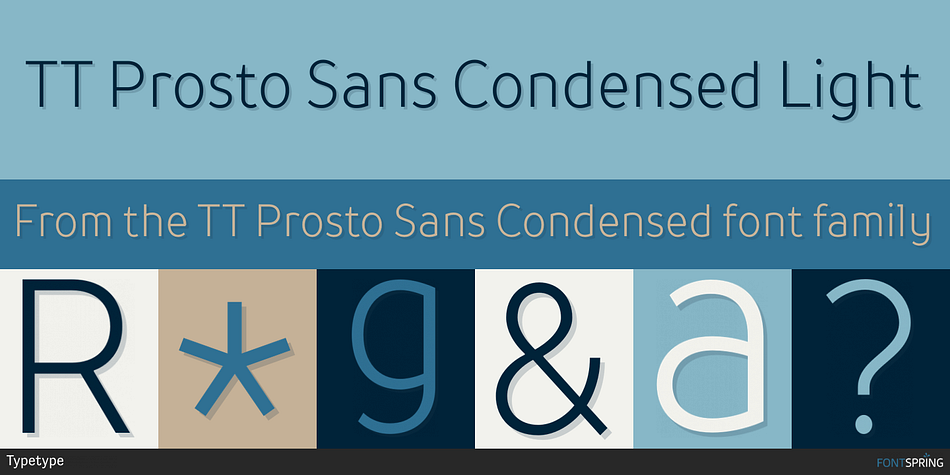
TT Prosto Sans Condensed Light
Designed by Ivan Gladkikh, TT Prosto Sans Condensed is a sans serif font family. This typeface has ten styles and was published by Typetype.
Prosto in the name of the font is translated into Russian as “Simply”. Prosto Sans Condensed is the condensed version of the Prosto Sans font family. We created the simplest font possible, and it will fit perfectly into any design.
Each line of this typeface is emotionally neutral and aims to not emphasize the text in its graphic representation, but only to use the text to convey the meaning. Having Prosto Sans and Prosto Sans Condensed in your collection is like having a universal tool that helps you every day when you need to ‘mend’ or ‘repair’ something. Due to condensed proportions, any text array fits a smaller text field than usual.